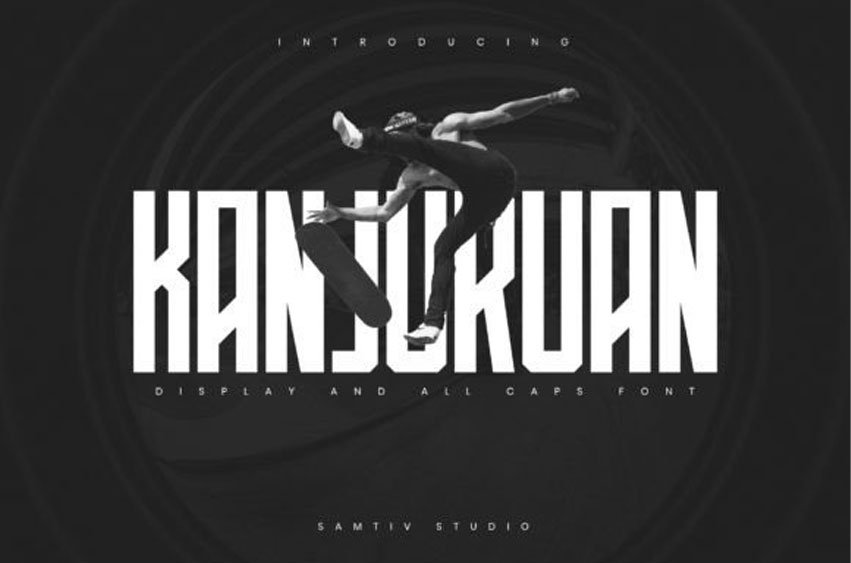
Kanjuruan Font is a modern and cool display font.
Whatever the topic, this font will be a wonderful asset to your font library, as it has the potential to enhance any creation.
Kanjuruan Font is a modern and cool display font.
Whatever the topic, this font will be a wonderful asset to your font library, as it has the potential to enhance any creation.